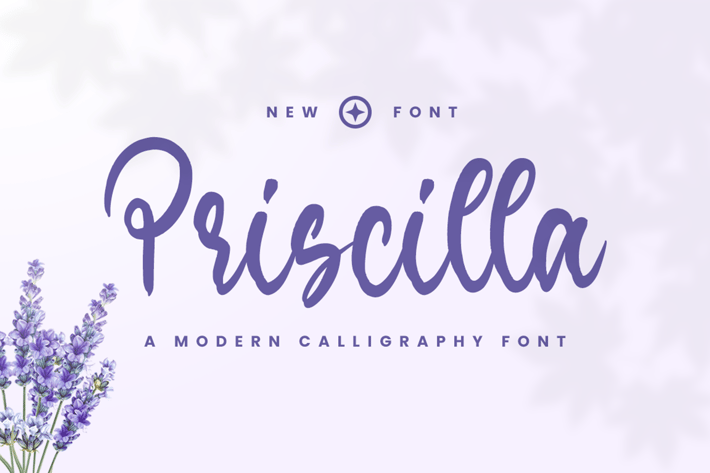
Priscilla - Instagram Font
Priscilla is a beautiful and refined script font. It has a classy, elegant and modern look that can be used for logos, branding, invitations, stationery, wedding designs, social media posts, and much more!